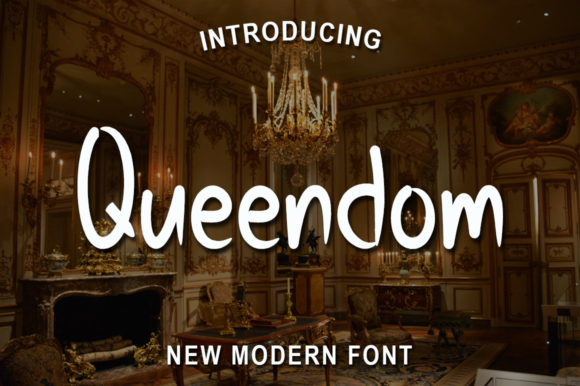
Step into the realm of Queendom, a script font that dances with elegance and flows with effortless grace. Crafted by the artisans at morningtimestudio, this enchanting font is a symphony of style, ready to elevate your creations to new heights.
With its whimsical strokes and charming curves, Queendom embraces the spirit of carefree creativity. Its hand-lettered design evokes a sense of authenticity and warmth, inviting you to connect with your audience on a deeply personal level. Whether you're crafting invitations for joyous celebrations or designing posters that ignite hearts, Queendom will effortlessly capture the essence of your message.
Unleash your imagination and let Queendom be your guide. This versatile font is the perfect companion for a myriad of projects, from playful flyers that ignite smiles to heartfelt letters that touch the soul. Its adaptability knows no bounds, empowering you to express yourself in countless ways.
Embrace the power of Queendom and watch your creations transform into masterpieces that captivate and inspire. Let its enchanting characters paint a picture of joy, creativity, and unwavering passion.
Welcome to the world of Queendom, where your words will dance with newfound elegance and your ideas will soar on the wings of inspiration. Download Queendom today and embark on an extraordinary journey of creative expression.